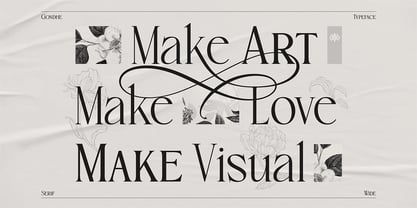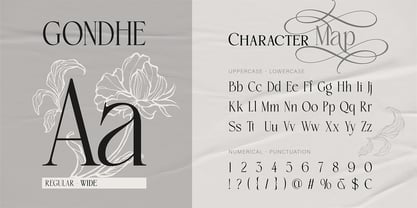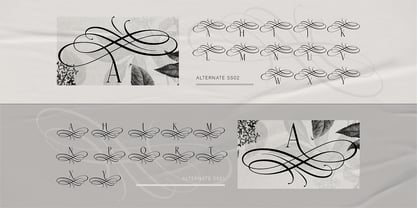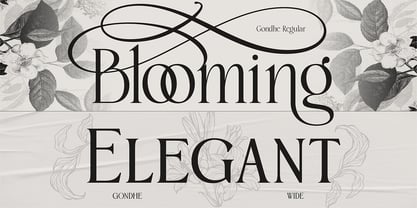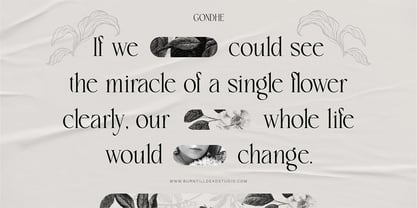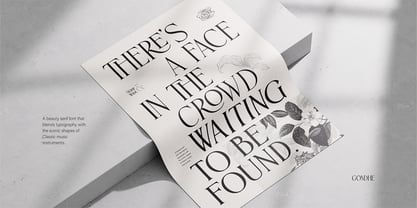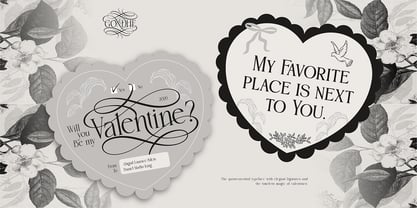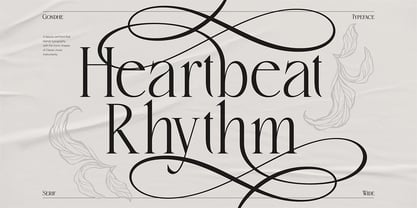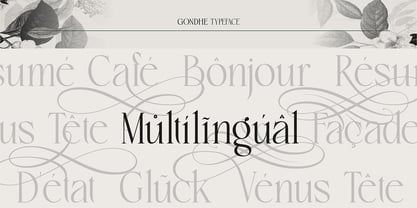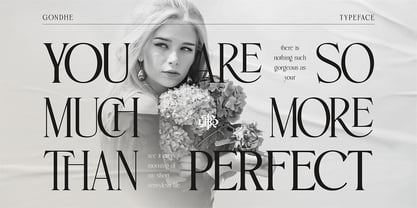
Gondhe
The Gondhe Font Family was designed by Eric Kurniawan and published by Burntilldead. Gondhe contains 2 styles and family package options. More about this family
Gondhe is an exquisite, high-contrast serif typeface crafted by Burntilldead Studio. Designed to blend timeless typography with dramatic, sweeping calligraphic flourishes, Gondhe brings an air of luxury, elegance, and artistic sophistication to any creative project.
Whether you are designing a high-end luxury brand, wedding invitations, editorial layouts, or eye-catching packaging, Gondhe giving you full creative freedom to build custom, hand-crafted typographic compositions with ease.
Perfect for:
• Luxury Branding & Logo Design
• Wedding Stationery & Event Invitations
• Magazine Covers & Editorial Headlines
• High-End Product Packaging & Label Design
• Social Media Graphics, Quotes, & Posters